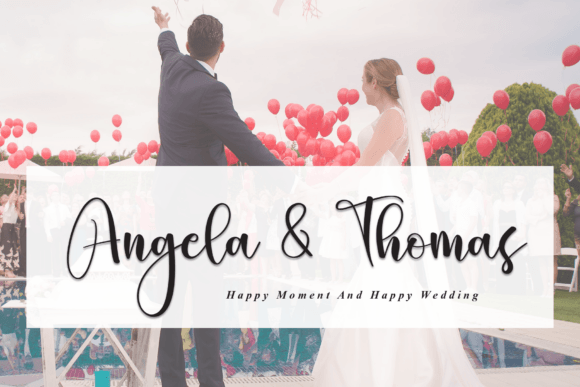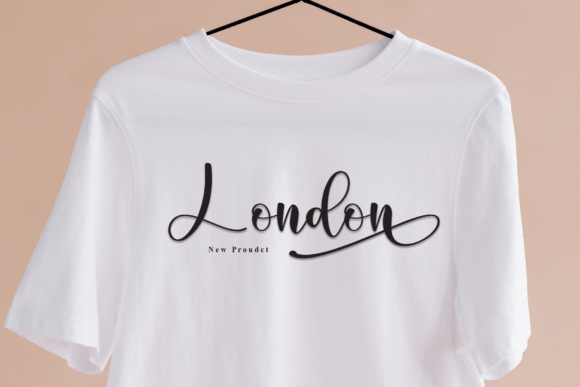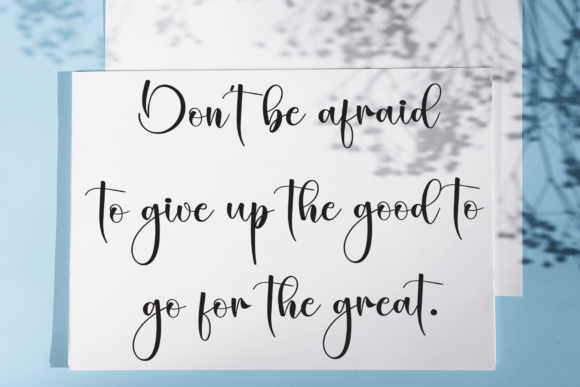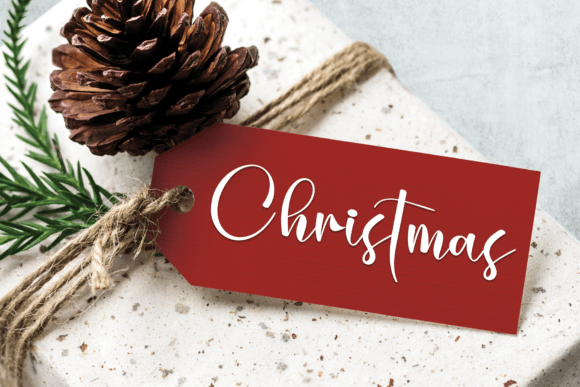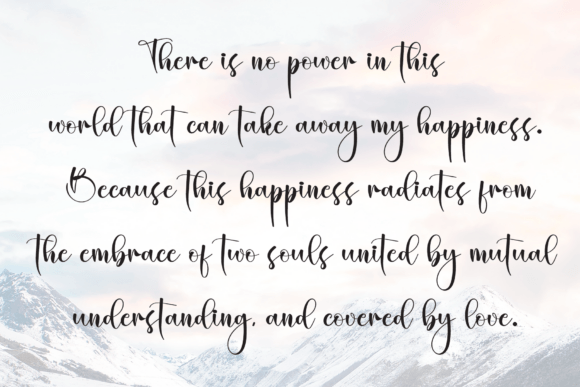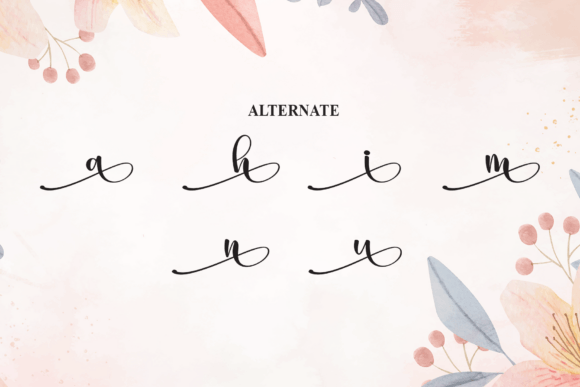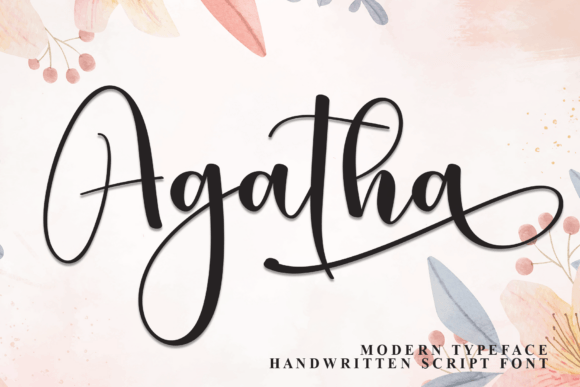
Discover the Charm of Agatha Font: A Sweet and Friendly Handwritten Delight
Are you on the hunt for a font that adds a touch of warmth and personality to your designs? Look no further than Agatha Font, a sweet and friendly handwritten font that’s perfect for a wide range of creative projects. With its natural and unique style, Agatha is incredibly versatile and can be used to bring a sense of charm and character to everything from branding and packaging to invitations and crafts.
The Unique Style of Agatha Font
Agatha Font boasts a distinctive handwritten style that’s both elegant and approachable. Its flowing lines and gentle curves give it a soft, organic feel that’s reminiscent of handwritten script. This makes it an excellent choice for designers and crafters who want to add a personal touch to their work. Whether you’re creating a logo, a poster, or a digital graphic, Agatha Font is sure to bring a sense of warmth and personality to your design.
Endless Possibilities with Agatha Font
The beauty of Agatha Font lies in its versatility. Its natural and unique style makes it incredibly fitting to a large pool of designs, and the only limit is your imagination! Here are just a few ideas to get you started:
- Branding and Packaging: Use Agatha Font to add a touch of personality to your brand’s logo, packaging, and marketing materials.
- Invitations and Stationery: Agatha Font is perfect for creating beautiful, handwritten-style invitations, cards, and stationery.
- Digital Graphics: Add a personal touch to your digital graphics, such as social media graphics, blog headers, and email newsletters.
- Crafts and DIY Projects: Use Agatha Font to add a decorative touch to your craft projects, such as handmade cards, scrapbooking, and journaling.
Why Designers and Crafters Love Agatha Font
So, what makes Agatha Font so popular among designers and crafters? Here are just a few reasons:
- Unique and Handwritten Style: Agatha Font offers a distinctive handwritten style that’s perfect for adding a personal touch to your designs.
- Easy to Read: Despite its handwritten style, Agatha Font is incredibly easy to read, making it perfect for body text and headlines.
- Highly Versatile: Agatha Font can be used in a wide range of creative projects, from branding and packaging to crafts and DIY projects.
- Imagination is the Only Limit: With Agatha Font, the possibilities are endless, and the only limit is your imagination!
In conclusion, Agatha Font is a sweet and friendly handwritten font that’s perfect for designers and crafters looking to add a touch of warmth and personality to their designs. With its natural and unique style, Agatha Font is incredibly versatile and can be used in a wide range of creative projects. So why wait? Download Agatha Font today and start discovering the charm of this beautiful handwritten font for yourself!